2024 – Words of the Natural World – Nature in Art, Twigworth
In May 2024 we held our first full exhibition for nearly 10 years! It was held at Nature in Art in Twigworth and over 80 pieces of work were displayed, these included words written on pottery, fabric as well as paper and a large collection of folded items and books. The exhibition was visited by over 700 visitors including our own GLA members, many people interested in taking up the art and those who already enjoy making their own work.
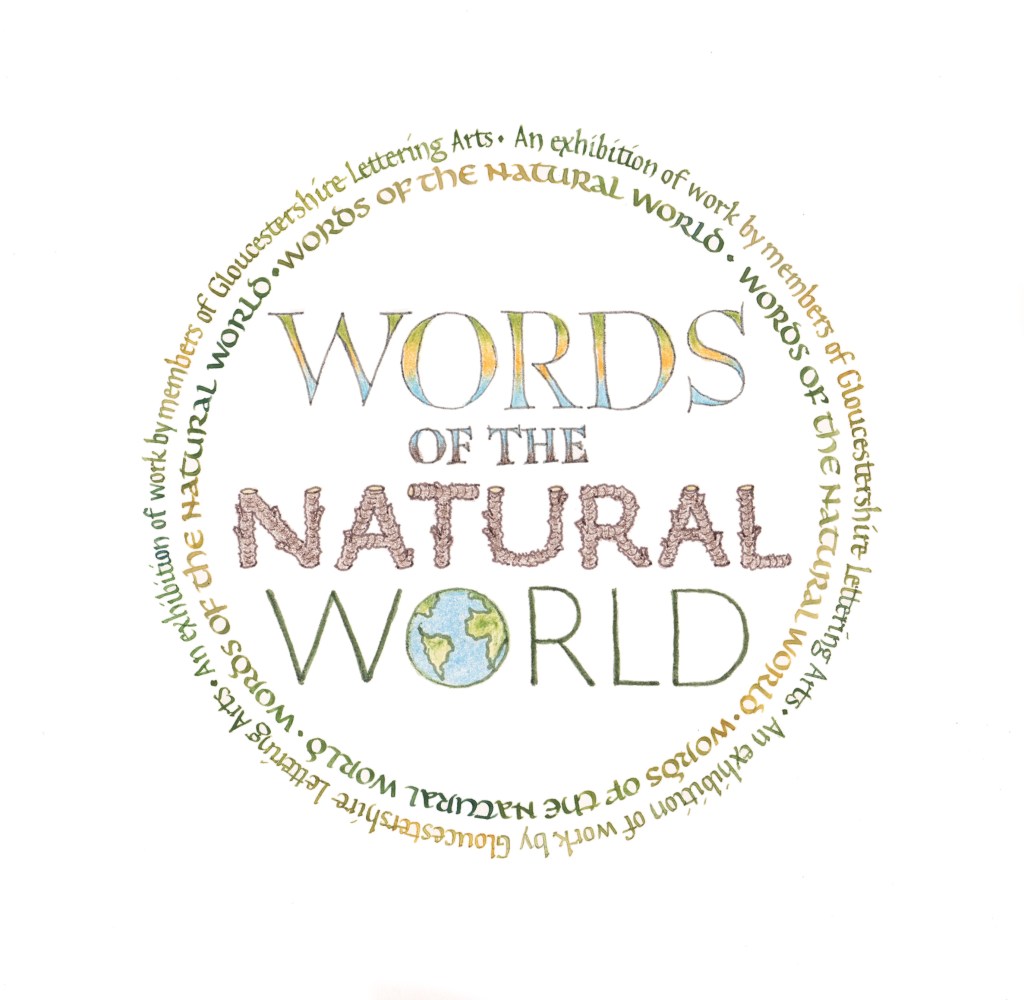
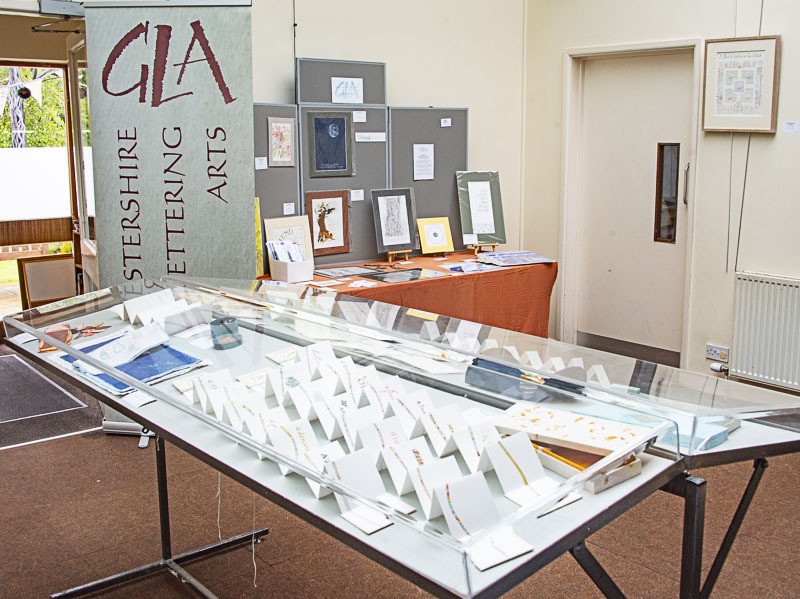
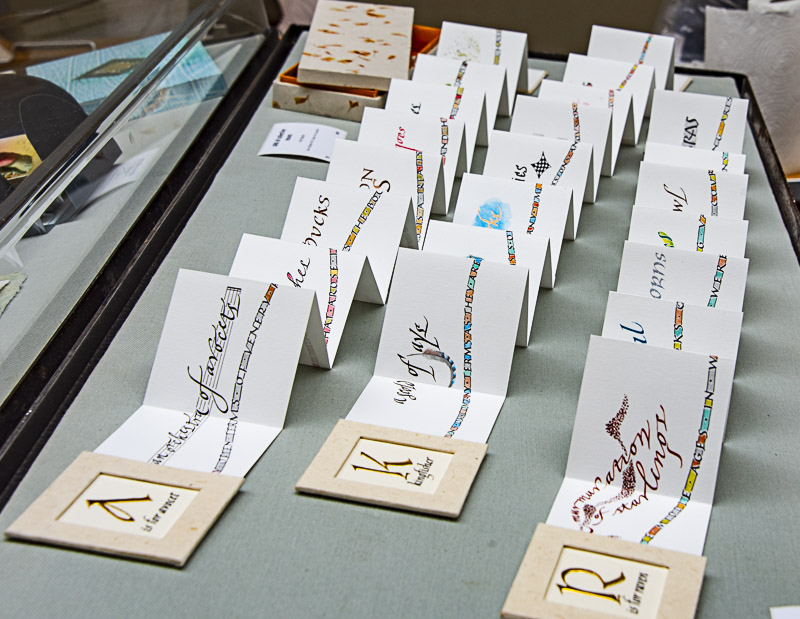
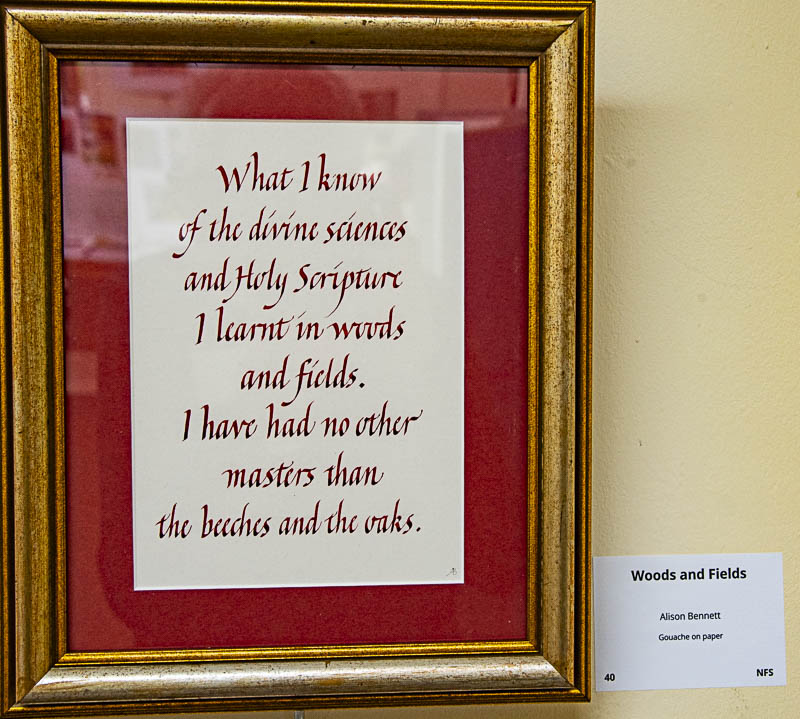
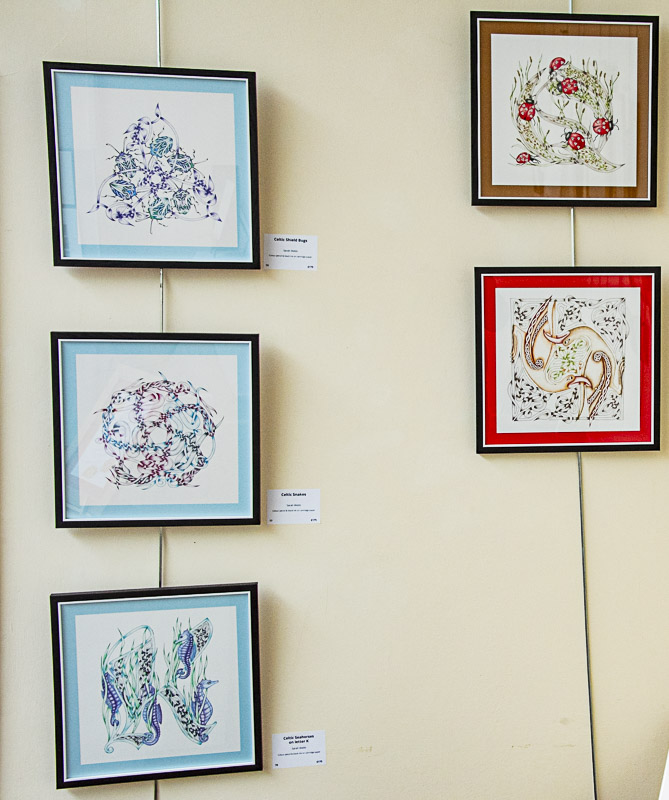
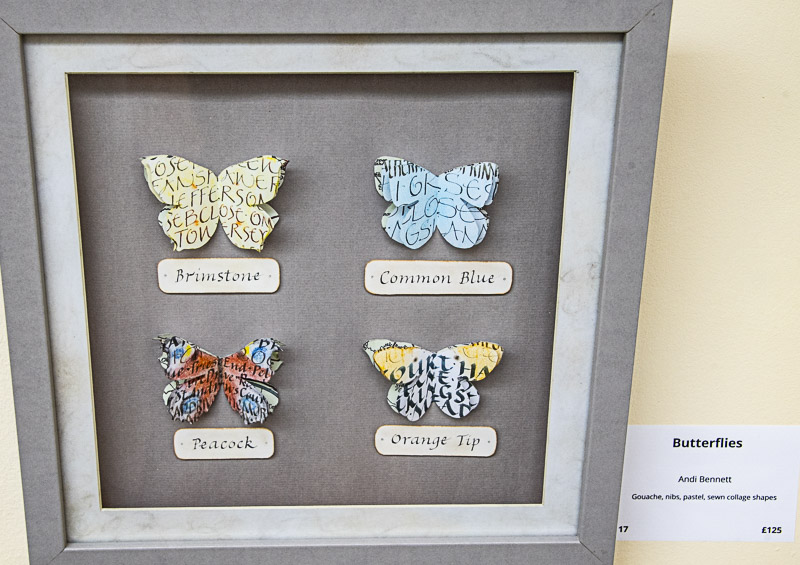
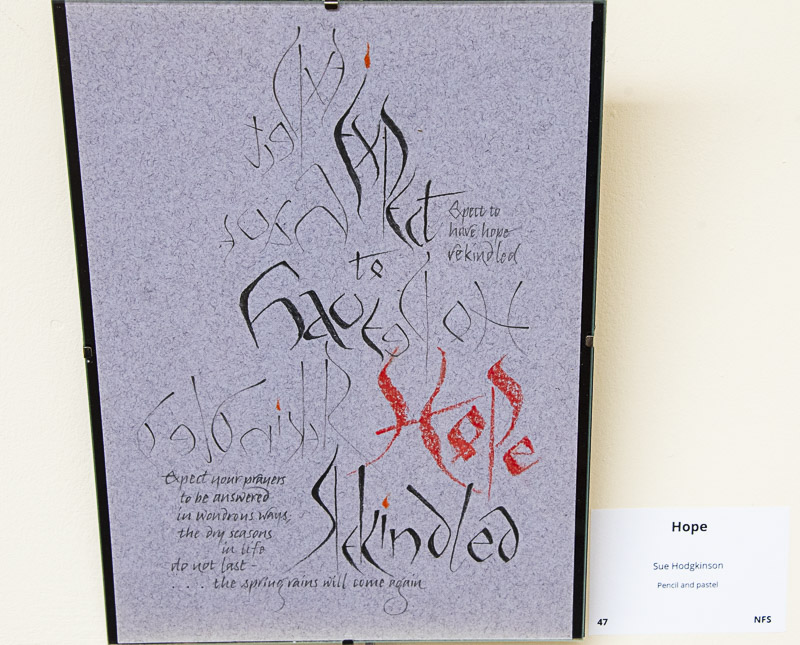
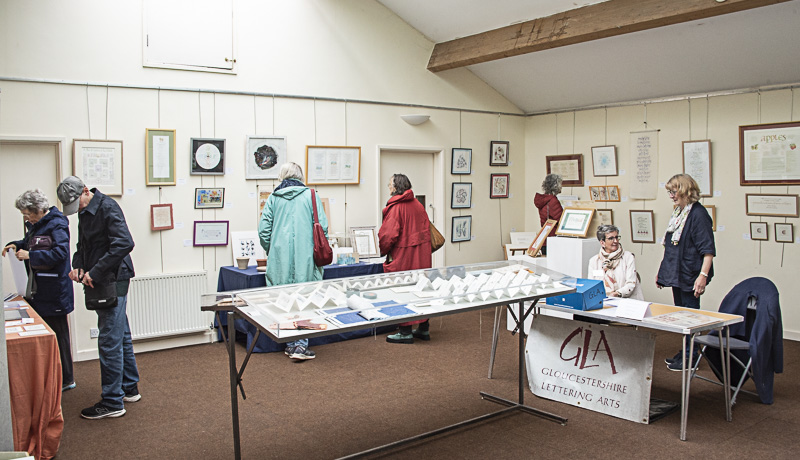
A sample of work from some of our recent exhibitions.
2018 – Calligraphy, Chords and Cakes – Highnam
As part of the Gloucester History Festival, we set up quill-making, gilding and calligraphy demonstrations for the day on 15 September in Holy Innocents Church, Highnam. Along with a display of our work from over the years, we enjoyed musical interludes of singing and bell-ringing. Sales of cakes and recipe cards all contributed to the fund for the restoration of the church.
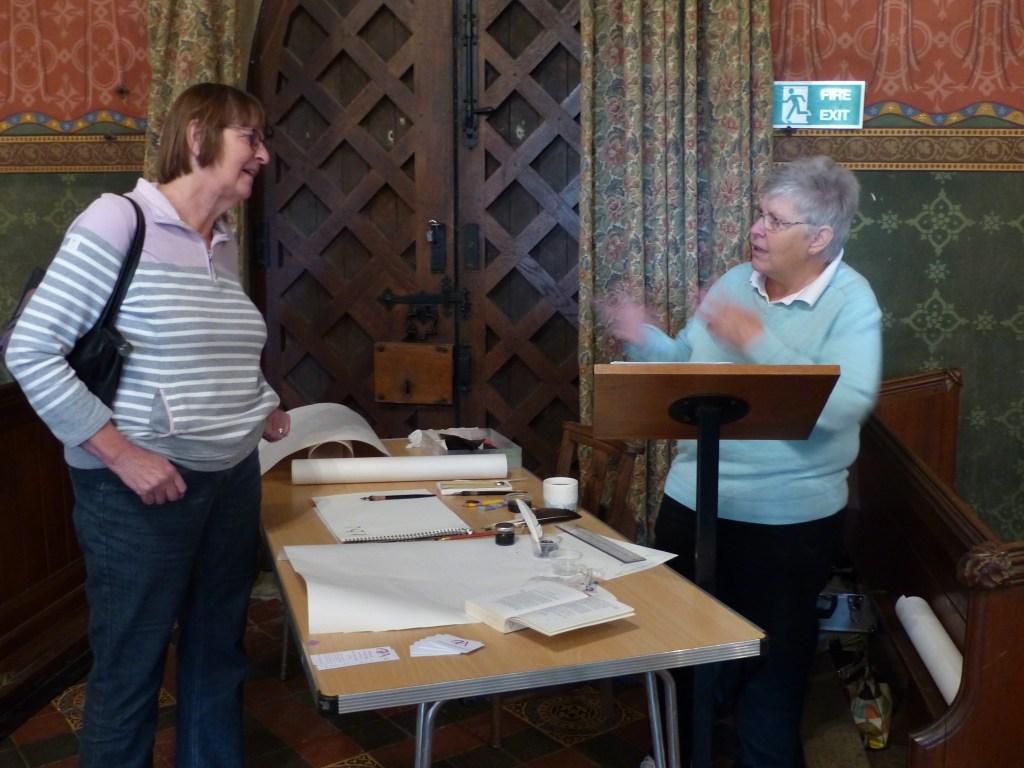
2017 – August – GLA at Nature in Art
We were artists in residence for a week at Twigworth, showing our lettering skills on paper and stone, and an exhibition of work in gold.
2015 – When in Rome … at Corinium Museum
For a month, from St Valentine’s Day to the Ides of March, we showed our work in Cirencester. Taking the proverb as our theme, we had fun letting our imagination roam. Signposts to European countries with advice on what to see or do when there – or reworking Roman lettering and ancient quotes.